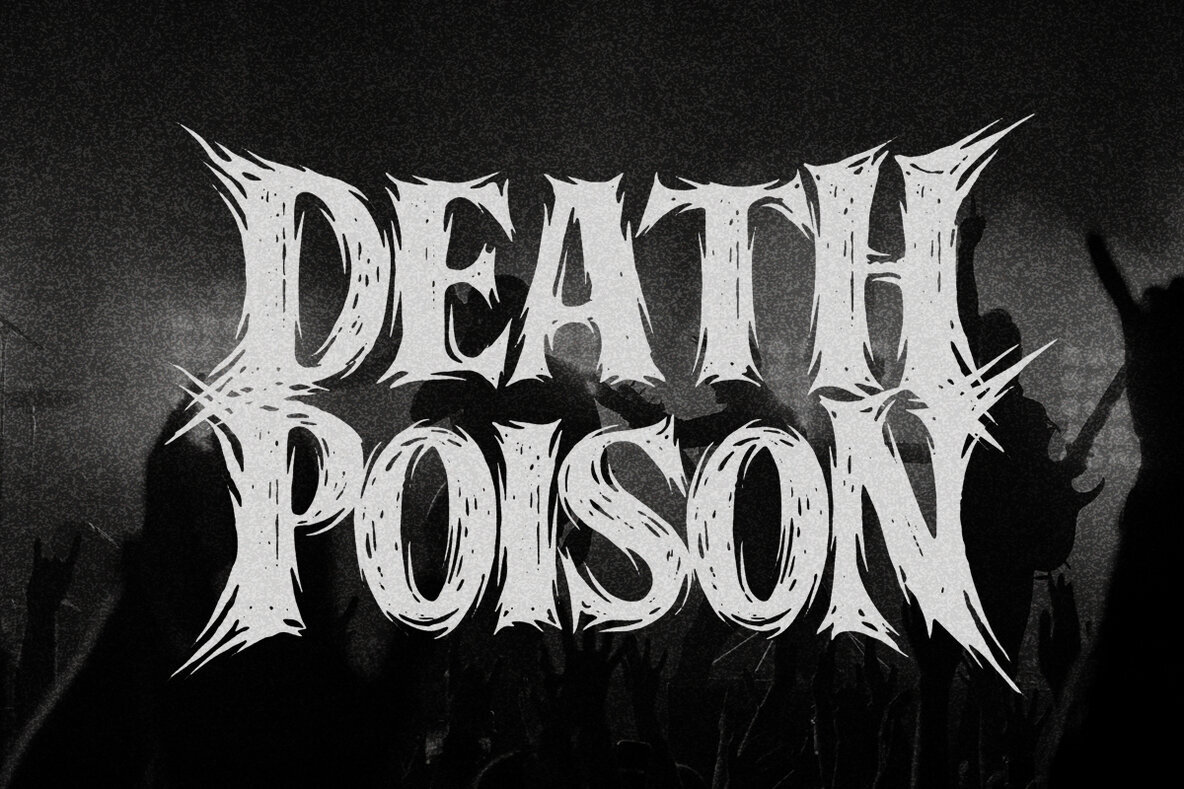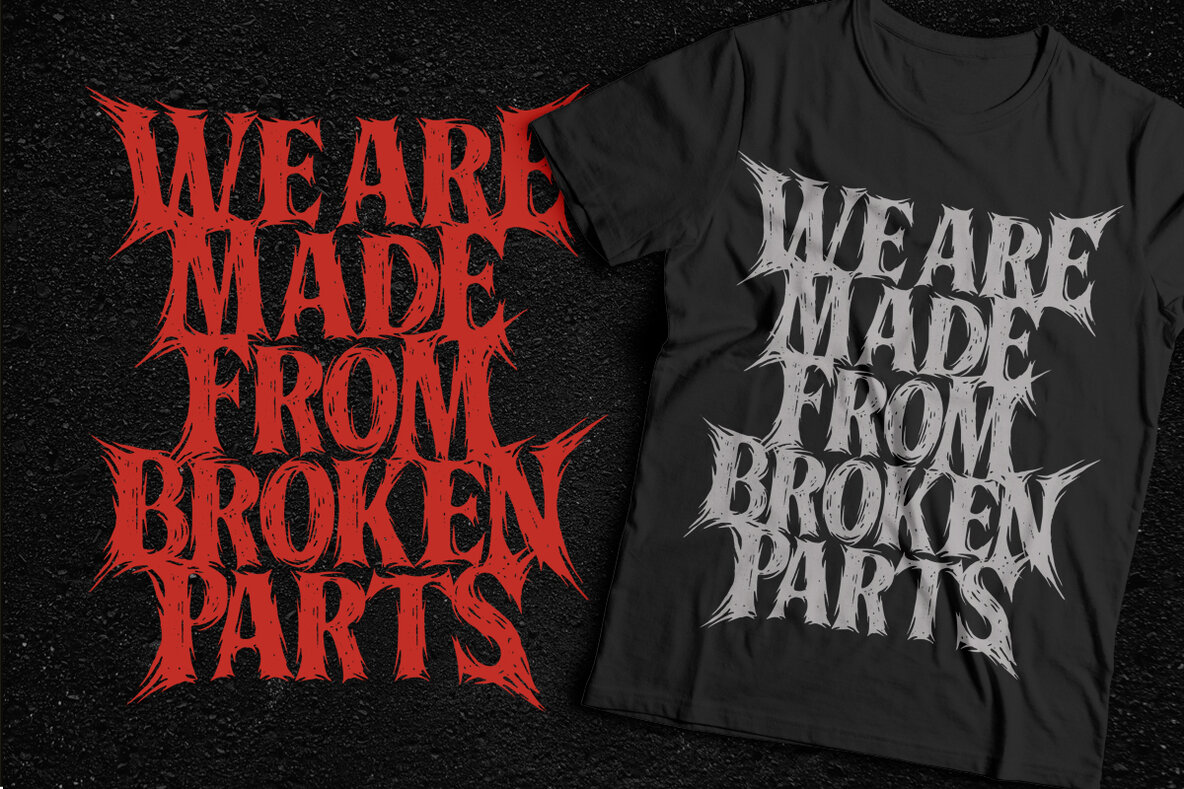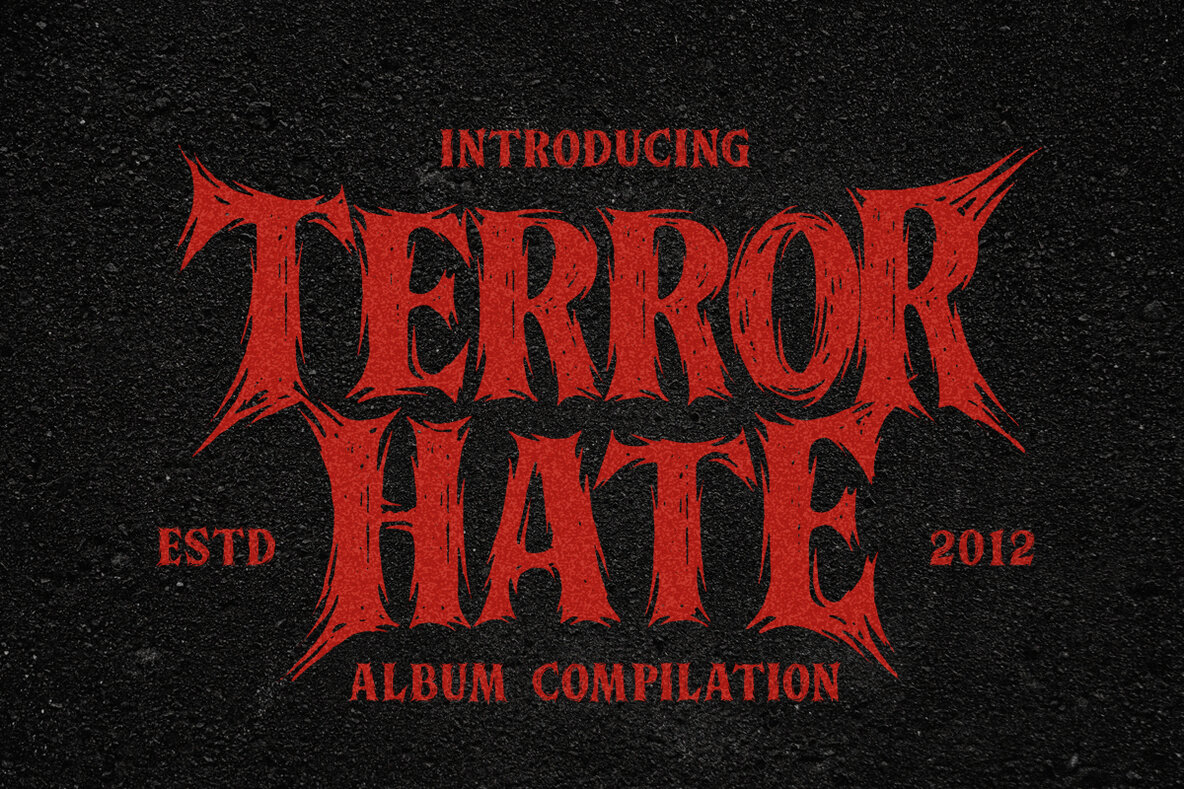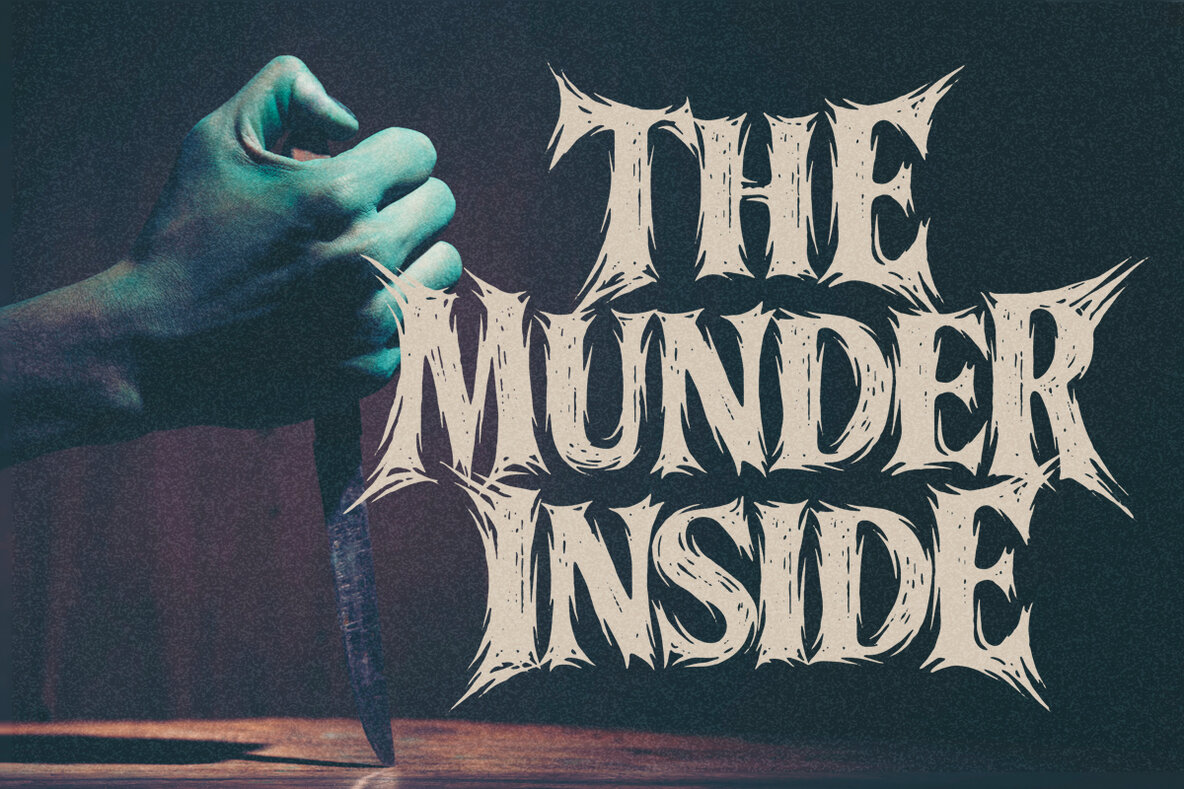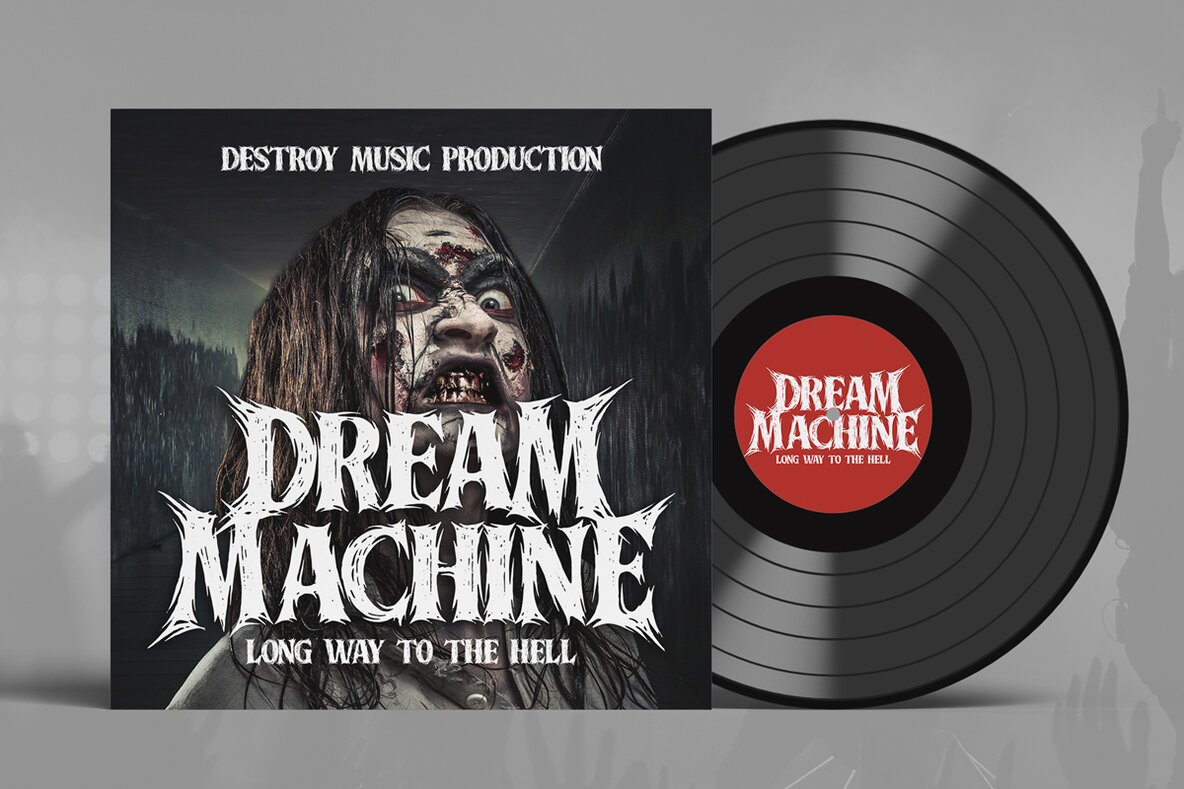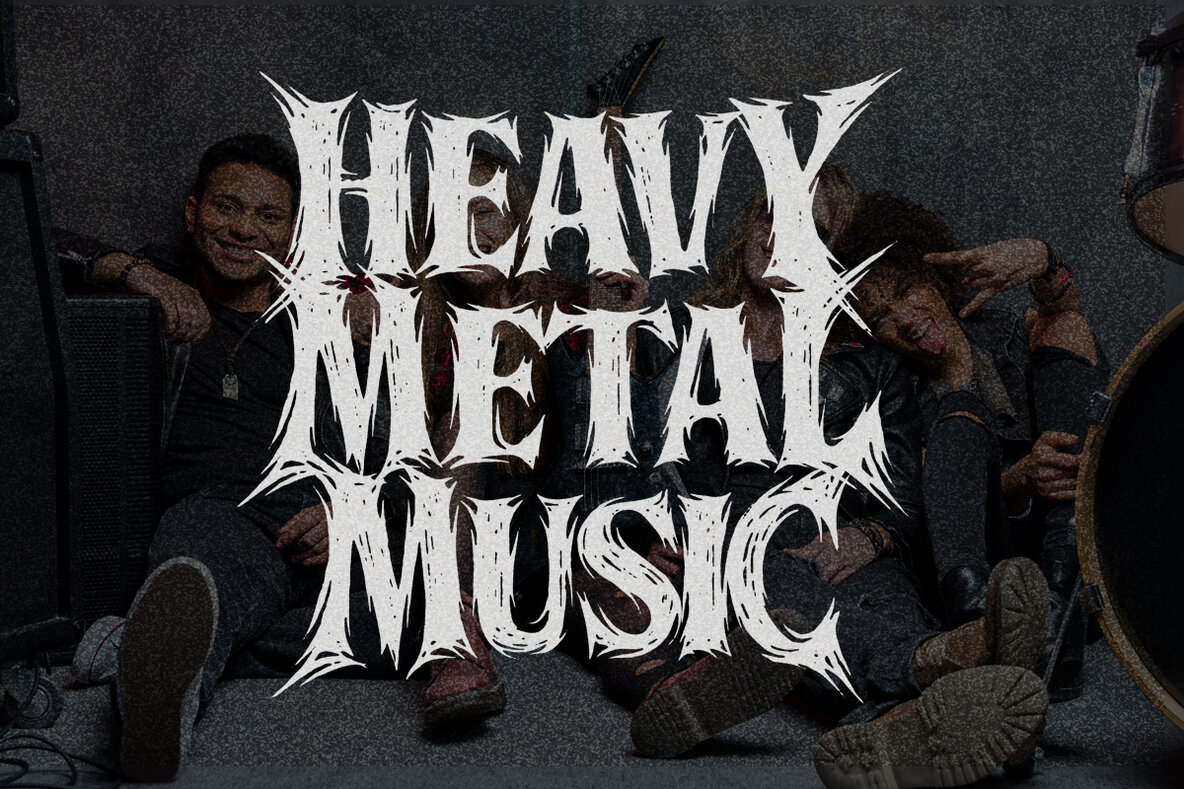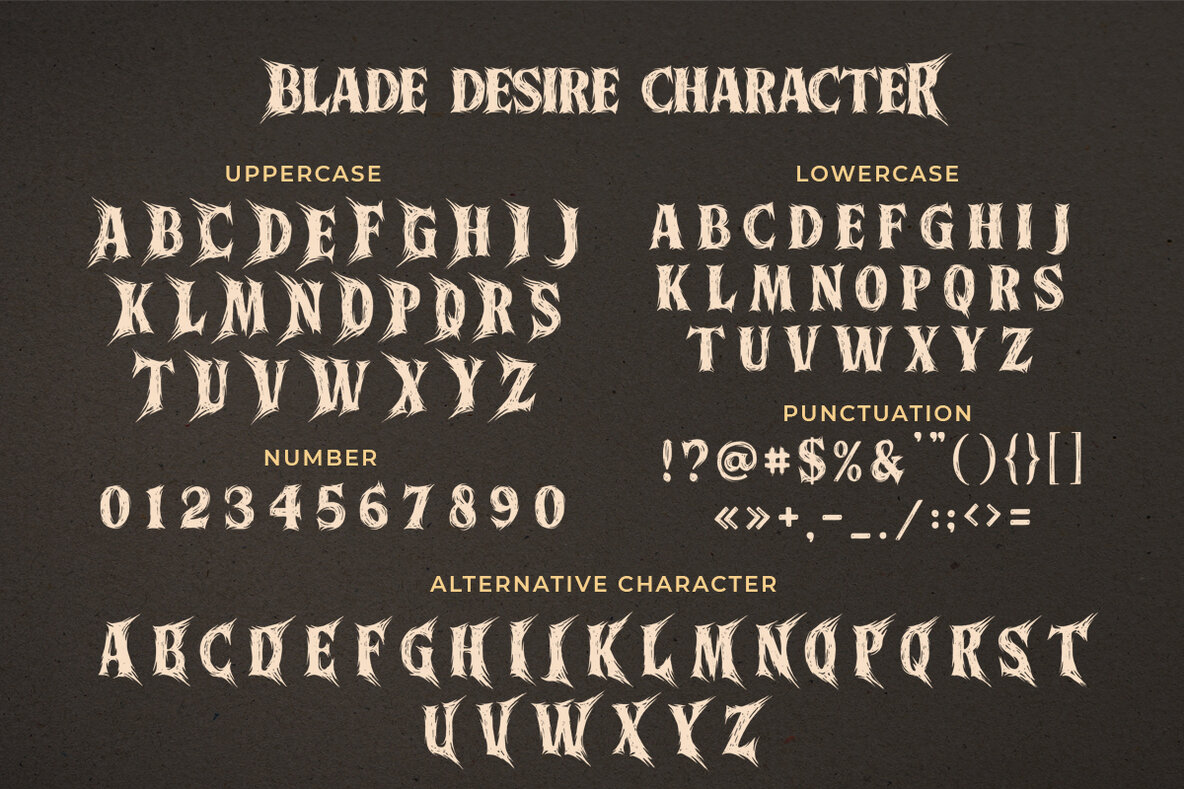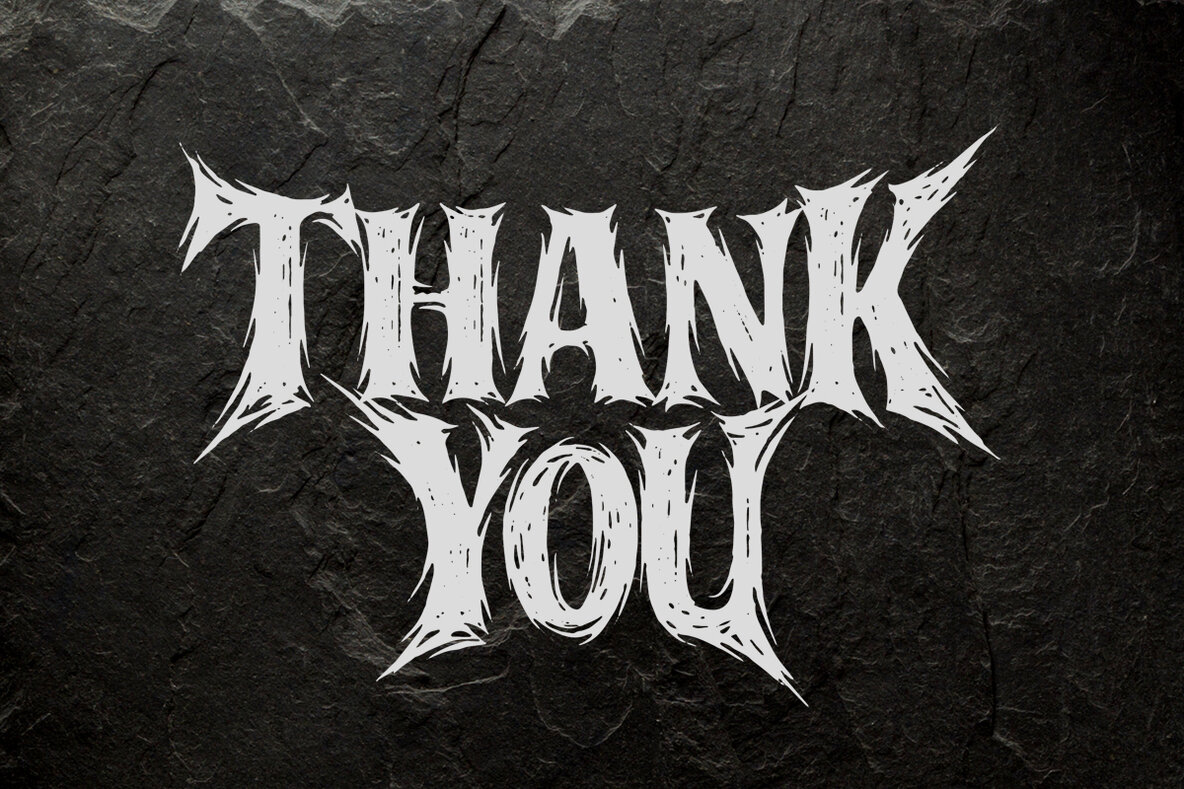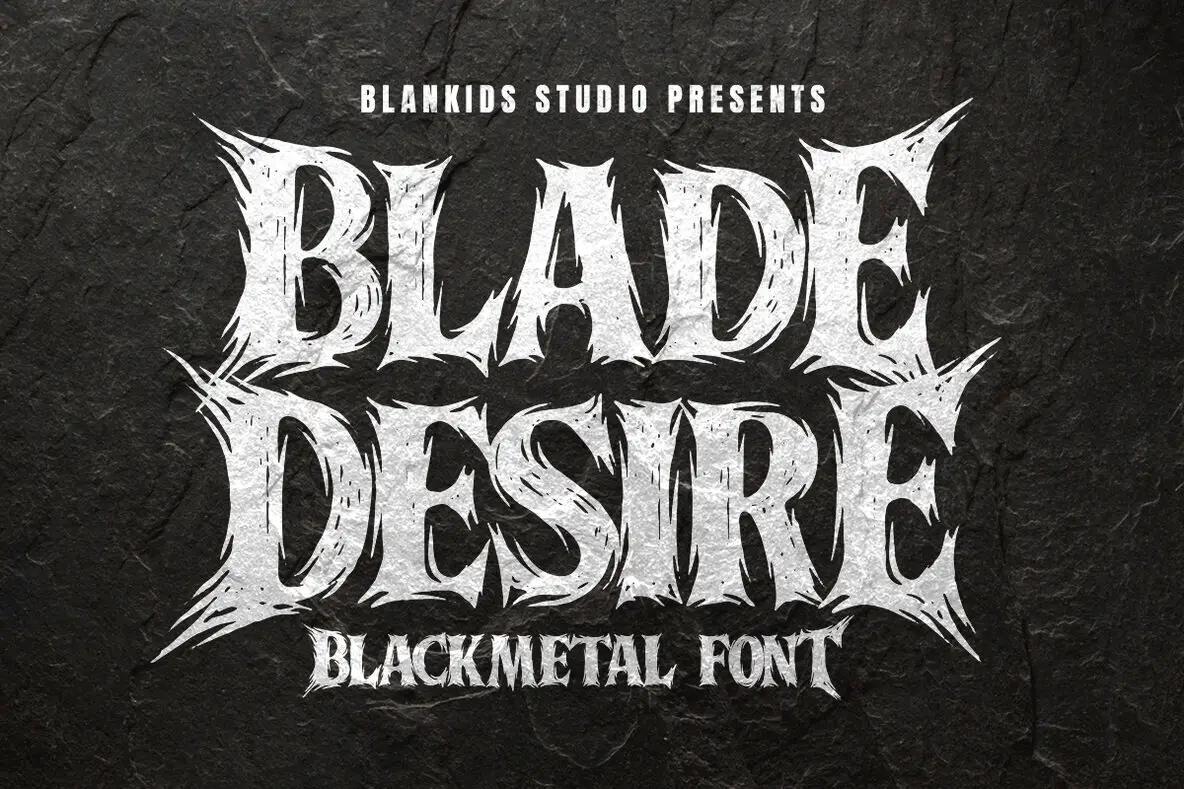
Blade Desire Font
Blade Desire
Bring your projects to life with Blade Desire, a stunning blackmetal font crafted to elevate your design work. Perfect for professional endeavors entwined with metal music themes, this typeface is ideal for band logos, album covers, event posters, t-shirts, and compelling product packaging. Each letter embodies a unique sharpness and a dynamic rock essence, ensuring your designs stand out.Blade Desire: The Blackmetal Font for Intense Creations